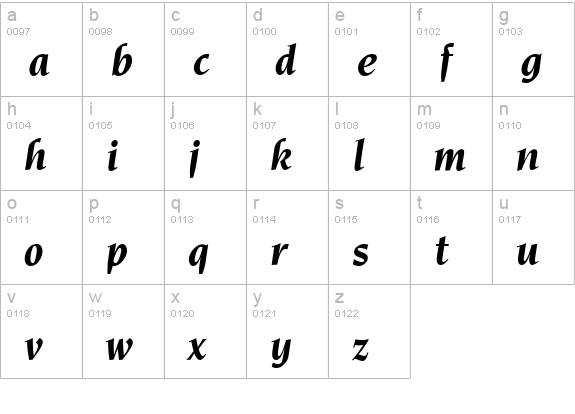
Novelty-BoldItalic is a fun and quirky font that adds a bold and dynamic flair to any project. Its unique design combines novelty elements with a touch of elegance, making it perfect for eye-catching headlines, posters, and branding materials. The italicized style gives a sense of movement and energy, drawing the reader's attention to the text. Best of all, Novelty-BoldItalic is available for free download at FontsMarket.com. Whether you're a designer looking to add a playful touch to your work or a creative individual wanting to make a statement, this font is sure to make your projects stand out. Don't miss out on the opportunity to enhance your designs with this exciting and versatile typeface.